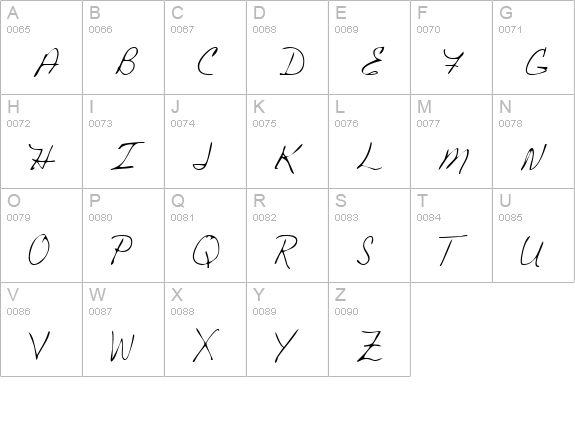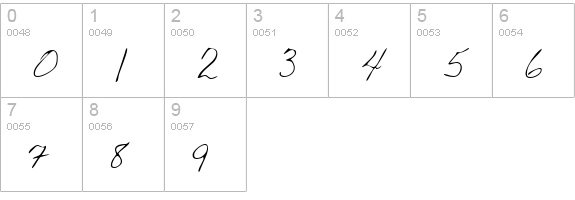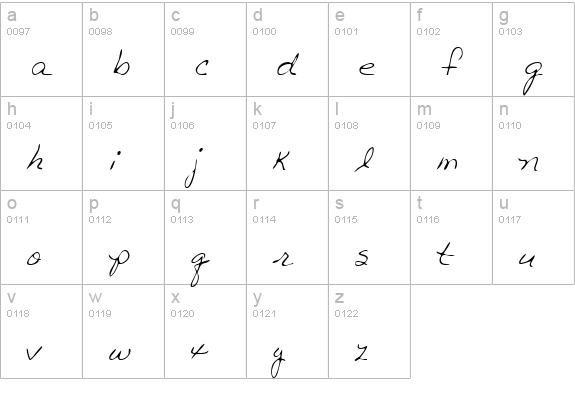
TashasHand Regular Font Details
TashasHand Regular is the standard, neutral variant in the TashasHand typeface family \xE2\x80\x94 well suited to general body text, paragraphs, and standard typographic work.
TashasHand Regular font is a stunning and meticulously crafted typeface that beautifully captures the essence of handwritten elegance. With its fluid strokes and graceful curves, this font effortlessly brings a touch of sophistication to any design project. Each character in TashasHand Regular has been carefully designed to maintain a natural and organic feel, replicating the charm of a hand-drawn script. The flowing lines and intricate details of this font create a sense of effortless beauty, making it perfect for invitations, greeting cards, logos, and more. One of the best features of TashasHand Regular font is that it is freely available to download at FontsMarket.com. This means that designers, creatives, and font enthusiasts alike can easily access and incorporate this stunning typeface into their work without any restrictions. The freedom to use TashasHand Regular font in both personal and commercial projects allows for endless creative possibilities. Whether you are looking to add a touch of elegance to your wedding invitations or create a unique and eye-catching logo for your brand, TashasHand Regular font is a versatile and timeless choice. Its free availability and exceptional quality make it a must-have for anyone seeking a beautiful and authentic hand-drawn font. Download TashasHand Regular font from FontsMarket.com today and unlock a world of creative possibilities.